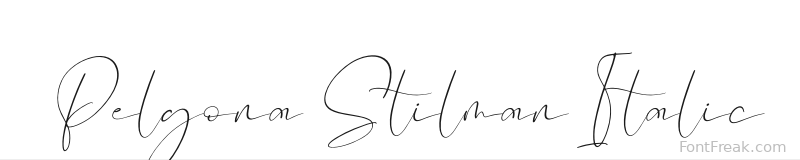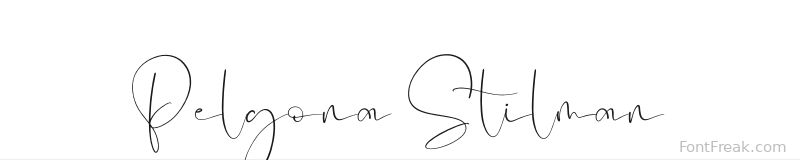
Pelgona Stilman
Pelgona Stilman Italic
Pelgona Stilman by Perspectype Studio is a captivating handwritten font that beautifully combines elegance and approachability. Released in 2021, this font features a delicate stroke weight that varies throughout, giving it a dynamic and organic feel. The subtle contrast between the thicker and thinner lines enhances its visual appeal, while the generous spacing between characters ensures readability. The playful, flowing lines of Pelgona Stilman add a charming touch that makes it suitable for a variety of creative projects.
This versatile font shines in specific use cases where a personal touch is desired. It is ideal for wedding invitations, where its romantic flair can evoke emotion and intimacy. Restaurant menus can benefit from its inviting style, making dishes appear more enticing. Additionally, Pelgona Stilman works well for branding purposes, especially for small businesses looking to establish a unique identity. Its warm and approachable nature also makes it perfect for greeting cards and social media graphics aimed at engaging audiences.
The target audience for Pelgona Stilman includes graphic designers seeking to add a handmade quality to their projects, small business owners wanting to create memorable branding, and content creators looking for distinctive typography to enhance their visual storytelling.
What sets Pelgona Stilman apart is its perfect balance between elegance and informality, making it a great choice for projects that require both sophistication and a personal touch. The Pelgona Stilman font free download allows creatives to easily incorporate this stunning typeface into their work, ensuring that their designs are not only visually appealing but also convey a sense of warmth and authenticity. With its unique characteristics and wide range of applications, Pelgona Stilman is a font that truly stands out.